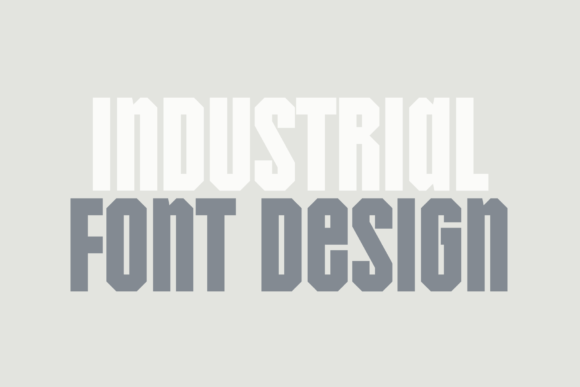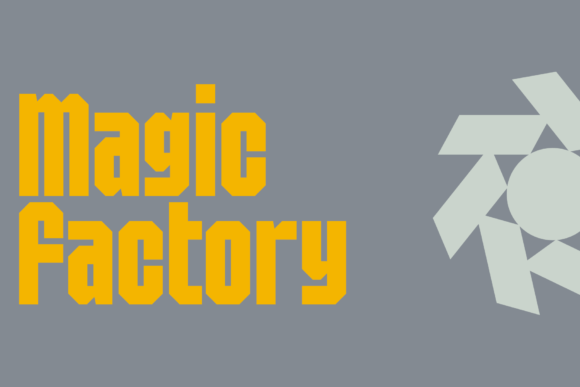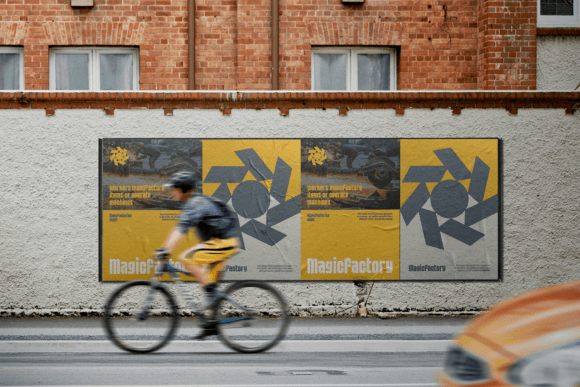
Introduction to Rayhead Font
Rayhead is a condensed industrial-inspired sans serif font, useful for minimalist and impactful designs.
Rayhead is a one-weight font that looks bold and geometric with straight lines and a contemporary touch Rayhead was designed for industrial or modern-themed designs such as transports, heavy goods, plumbing, or industrial work.